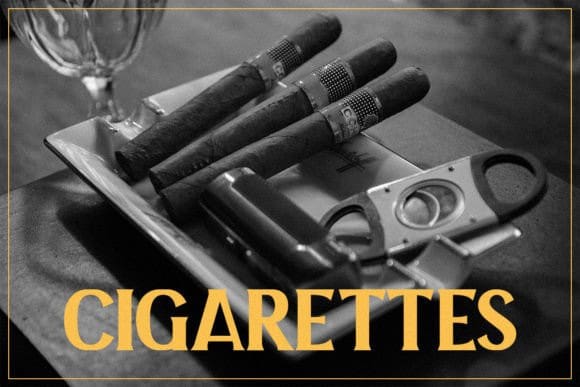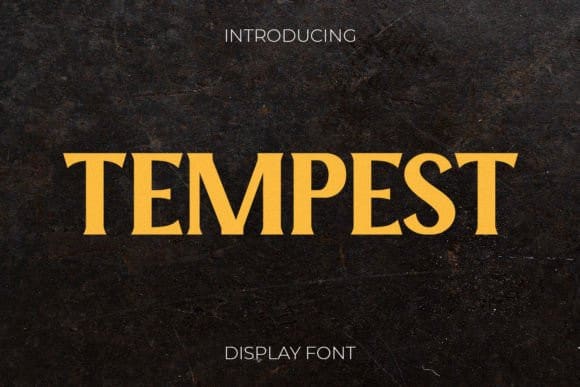
Tempest Font
Tempest Font is a modern serif font specifically made for luxury, fashion, and stylish statements. Its unique flare makes it perfect for beautiful headlines, branding, logotypes & display usage. This all-caps typeface is also perfect for creating outstanding logos, promotional content, and marketing graphics that can really grab the attention of your visitors.
Add some letter spacing to create unique headlines – an essential use case of the modern minimalist design trend. Please see the examples shown above to get an idea about the capability of this typeface.